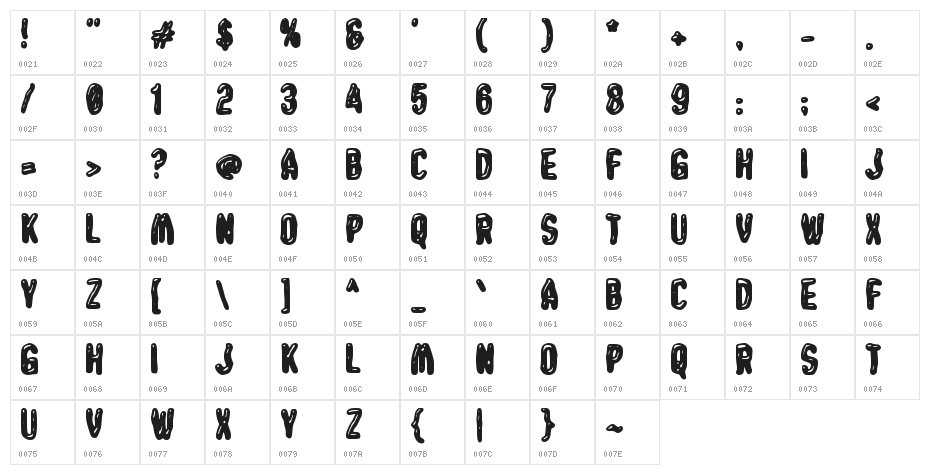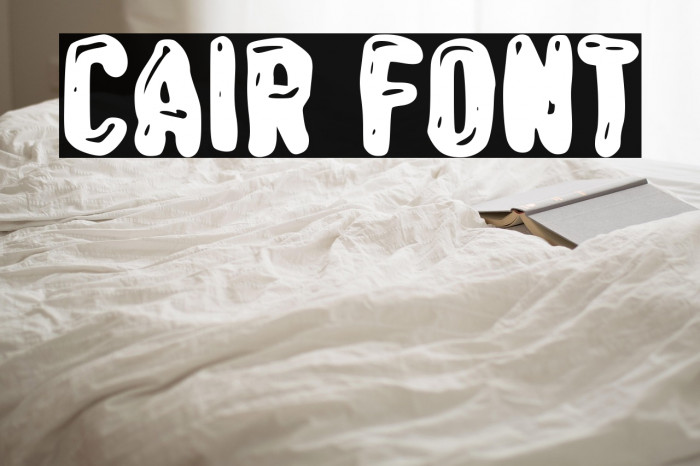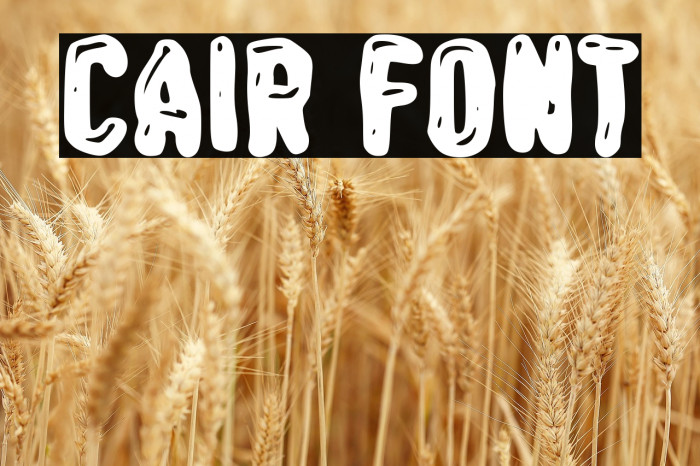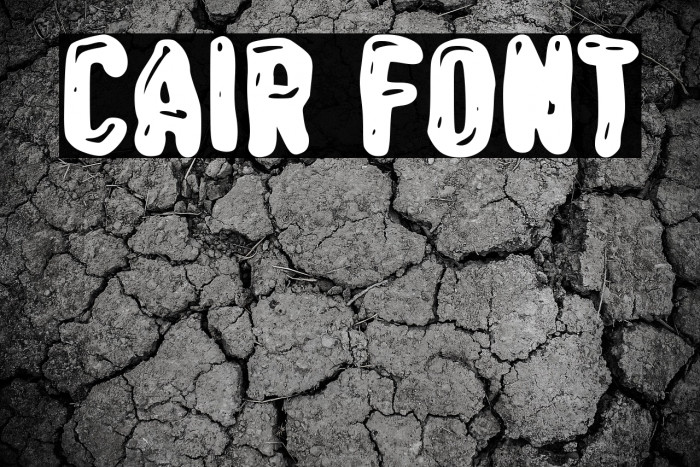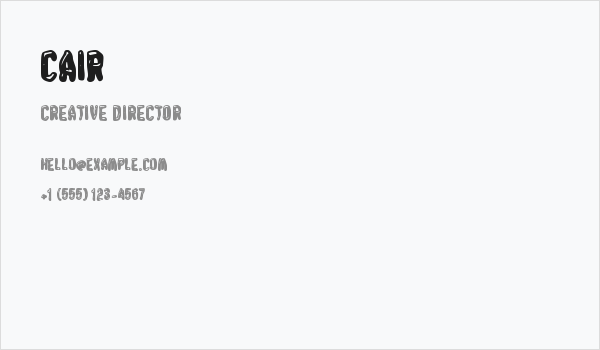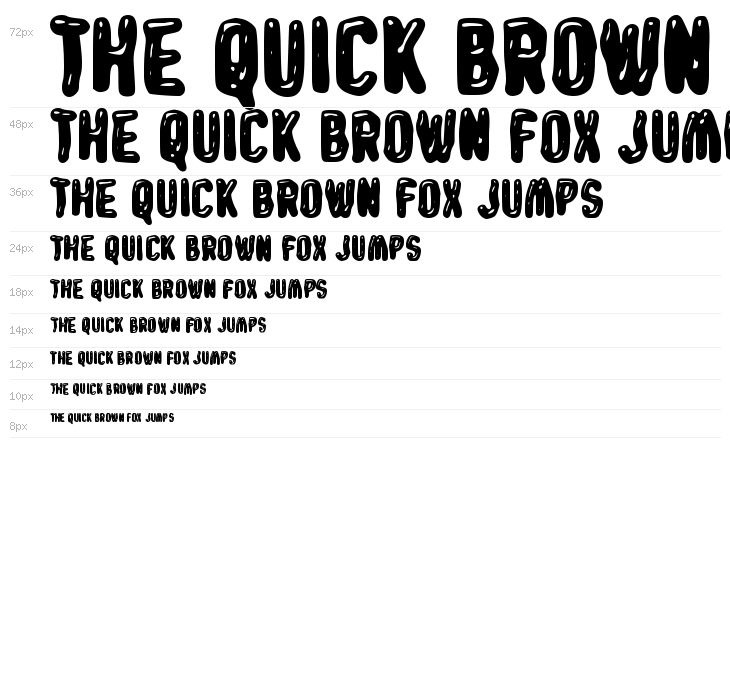
Cair Font
Cair Description
This font features a bold and playful style with thick, rounded strokes and a hand-drawn appearance. The characters are filled with a solid black color, giving them a strong presence on the page. Each letter and number is uniquely crafted with a slightly uneven and organic shape, adding to its whimsical and informal feel. The font includes both uppercase and lowercase letters, as well as numbers and a variety of special characters. Its boldness and distinctive style make it ideal for eye-catching designs.
| Overall Style | Playful, Whimsical, Informal |
| Use Case | Headlines, Posters, Creative Projects |
| Proposed Projects | Perfect for children's books, playful branding, posters, and creative projects that require a fun and informal touch. |